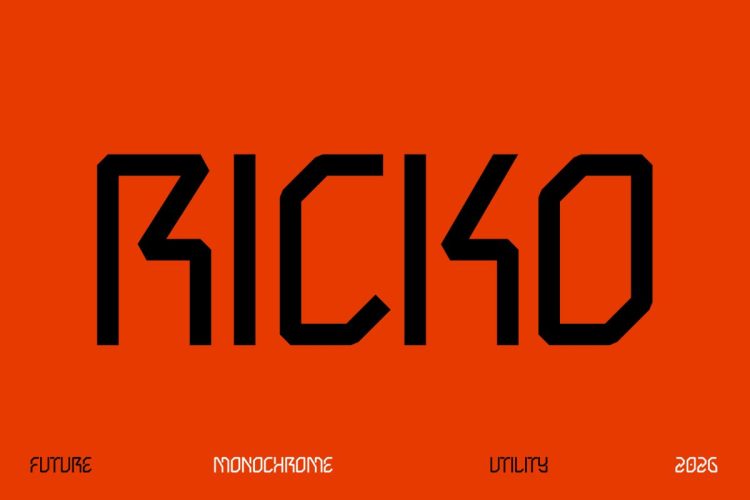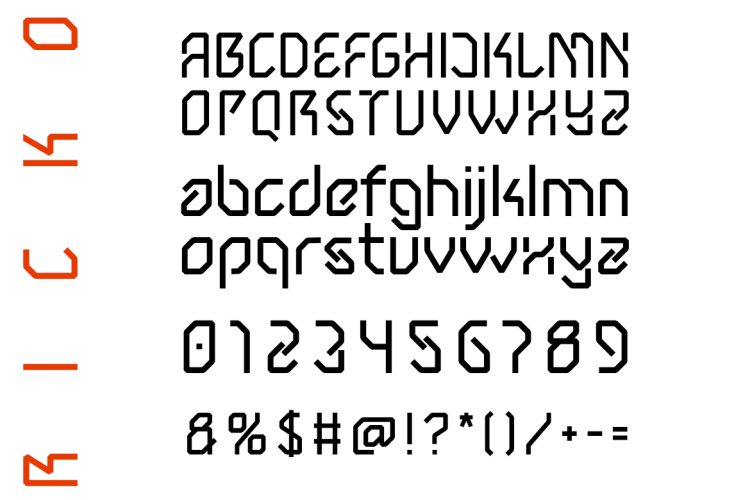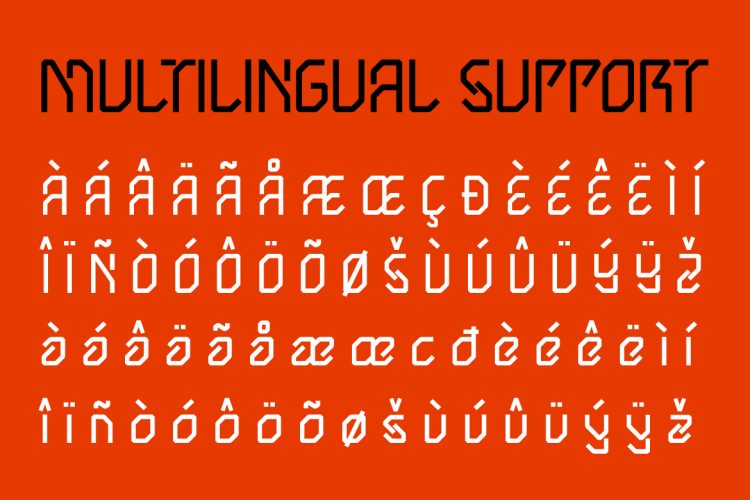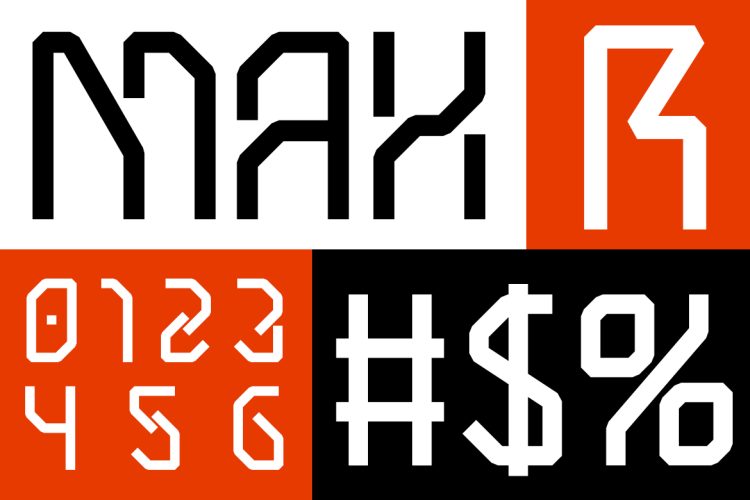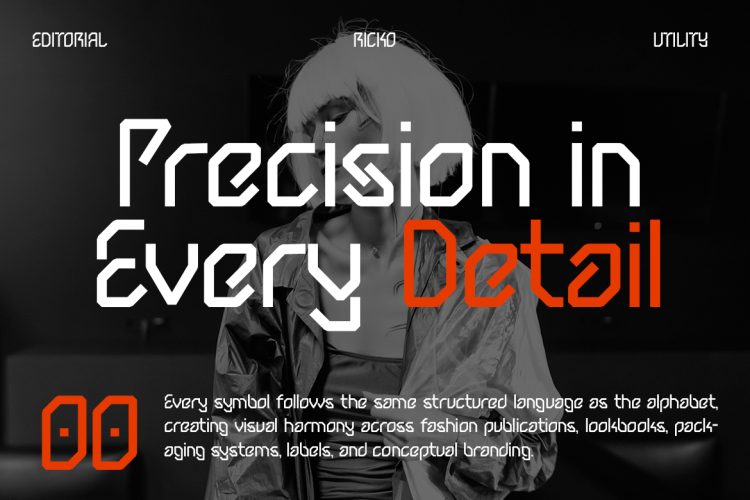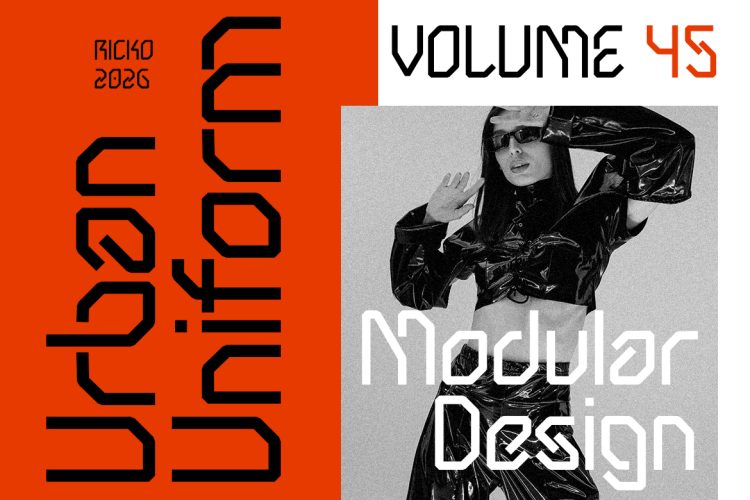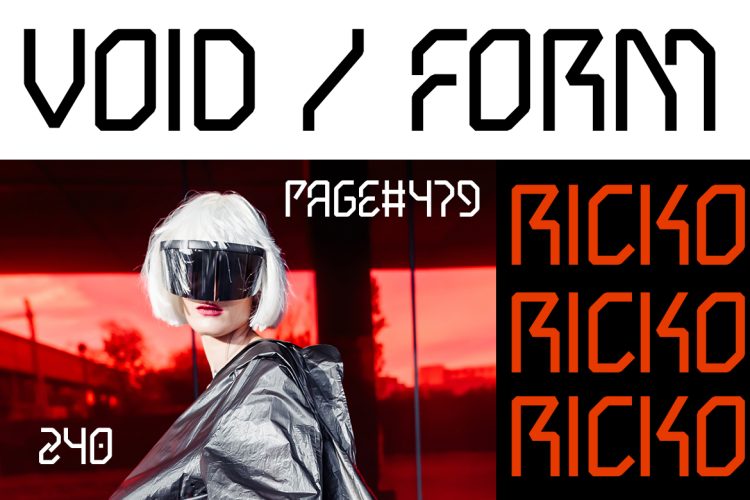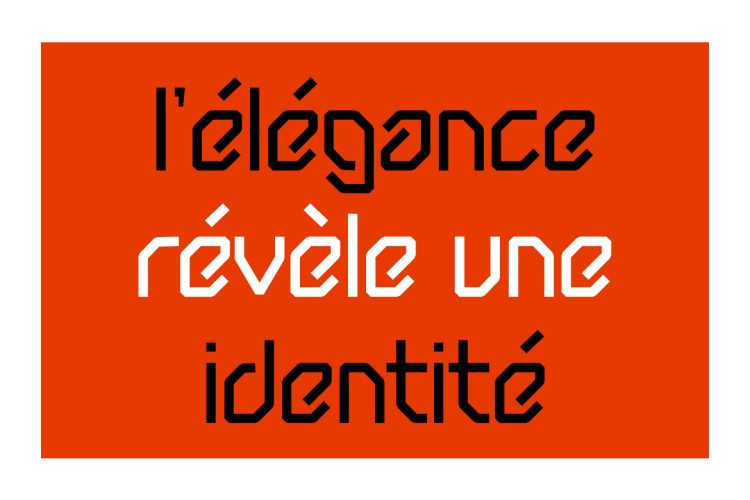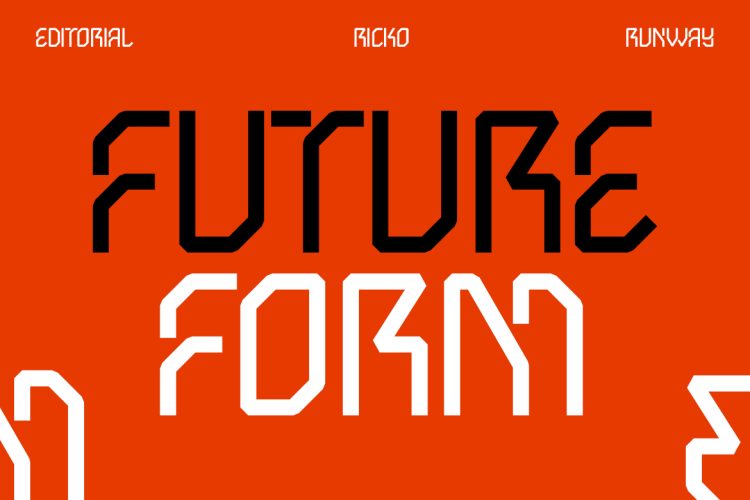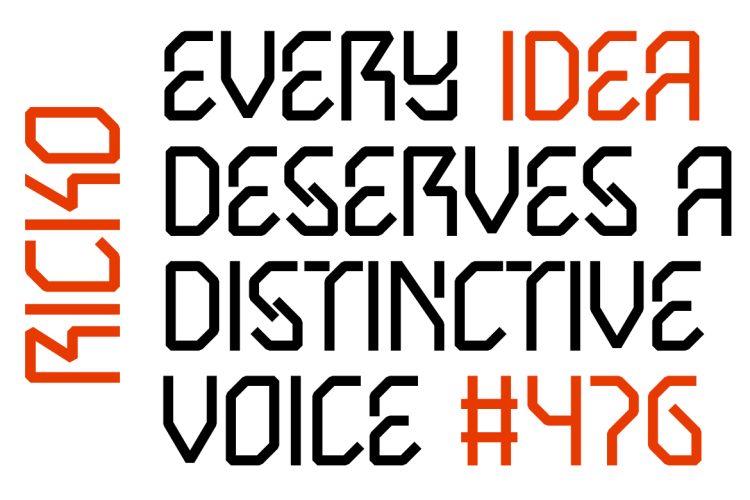
Modern Font RICKO โ Futuristic Modular Display Font
Modern Font RICKO introduces a bold geometric style that transforms futuristic concepts into striking visual statements. Rather than following conventional typography, RICKO combines modular construction, angular curves, and clean proportions to create a distinctive look that feels innovative and confident. Moreover, its structured design adds rhythm and balance to every headline, while its futuristic details keep every composition fresh and memorable. As a result, your branding stands out with a sleek, high-tech personality. Furthermore, Multilingual Support for 67 languages lets you communicate consistently across global audiences without sacrificing style.
Built for Visionary Creators
Modern Font RICKO helps creative professionals build bold identities with confidence. Not only does it elevate headlines, but it also strengthens branding through a clean futuristic appearance. In addition, its versatile style fits technology brands, startup identities, gaming projects, architecture presentations, digital products, UI interfaces, editorial layouts, posters, packaging, logos, esports graphics, and social media campaigns. Likewise, its balanced spacing keeps every layout organized, while its modular letterforms maintain excellent readability across print and digital media. Consequently, every project feels modern, innovative, and professionally crafted.
Modern Font RICKOย Perfect For
- Technology branding
- Startup identities
- Gaming graphics
- UI and UX design
- Editorial layouts
- Posters and advertising
- Product packaging
- Logos and social media content
Design Beyond Ordinary
If you’re ready to create visuals that feel bold, intelligent, and future-focused, RICKO delivers the impact you need. Moreover, its modern architecture inspires stronger branding with every headline. As a result, your projects leave a lasting impression in competitive markets. Finally, choose RICKO today and give every design a futuristic voice that captures attention from the very first glance.